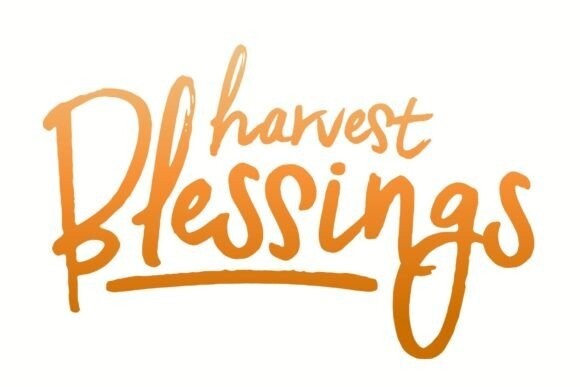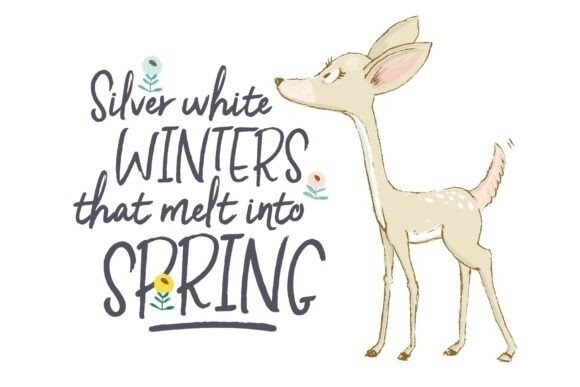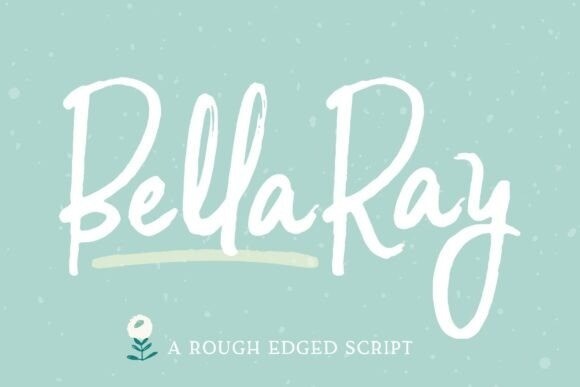
Bella Ray Font
Designer: Denise Chandler
Bella Ray Font is a beautiful, rough-edged script font. Its casual hand-drawn look can add a personal touch to any project. It includes some ligatures and alternate characters for a natural feel.